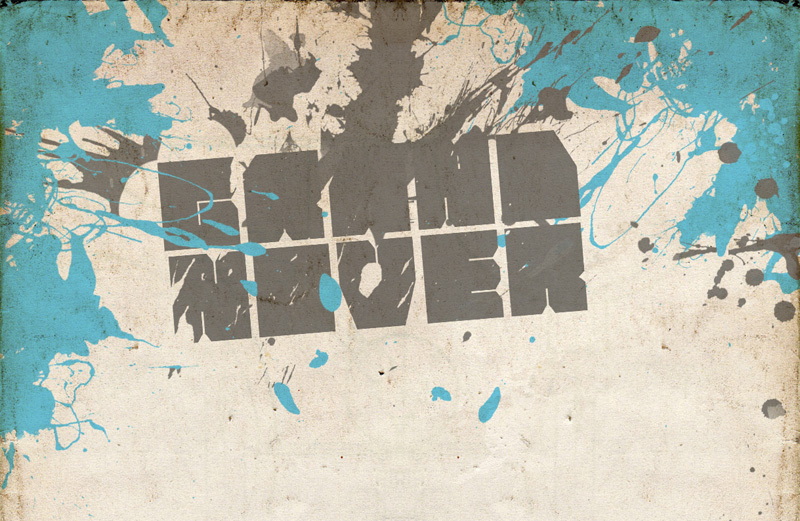
GrandNover3 by Frolov Alexey of MR.frukta is a free techno display font built from massive, angular capitals. Narrow cuts and uneven notches break through the strokes, giving the letters a damaged, mechanical surface. The silhouette stays broad and forceful.
Audiences drawn to industrial science fiction and hard-edged game worlds will recognize its visual cues in posters, game graphics, and music merchandise. Its blocky construction also suits event branding, particularly for electronic music or underground entertainment.